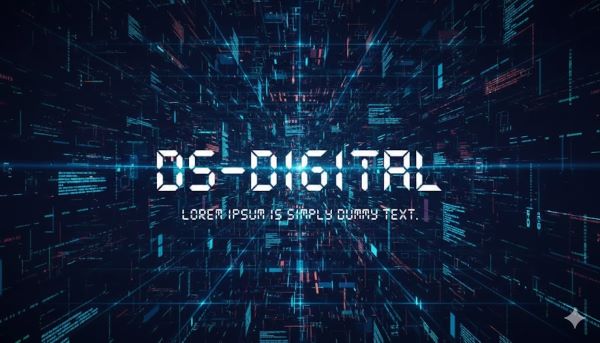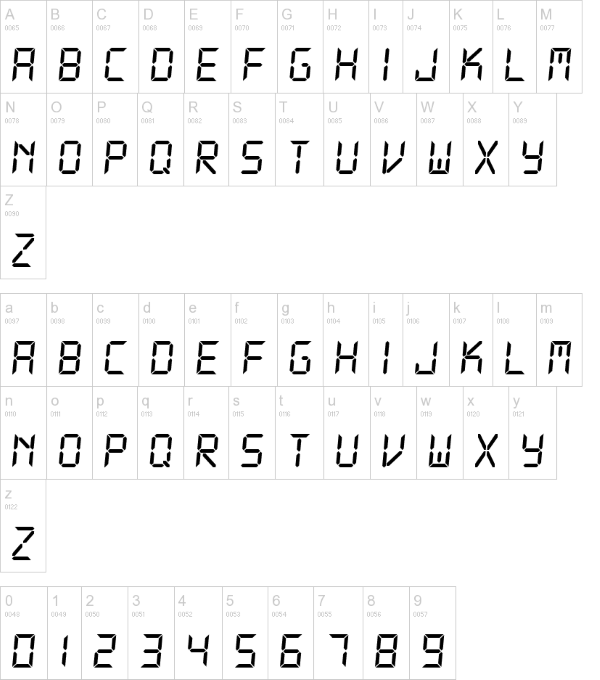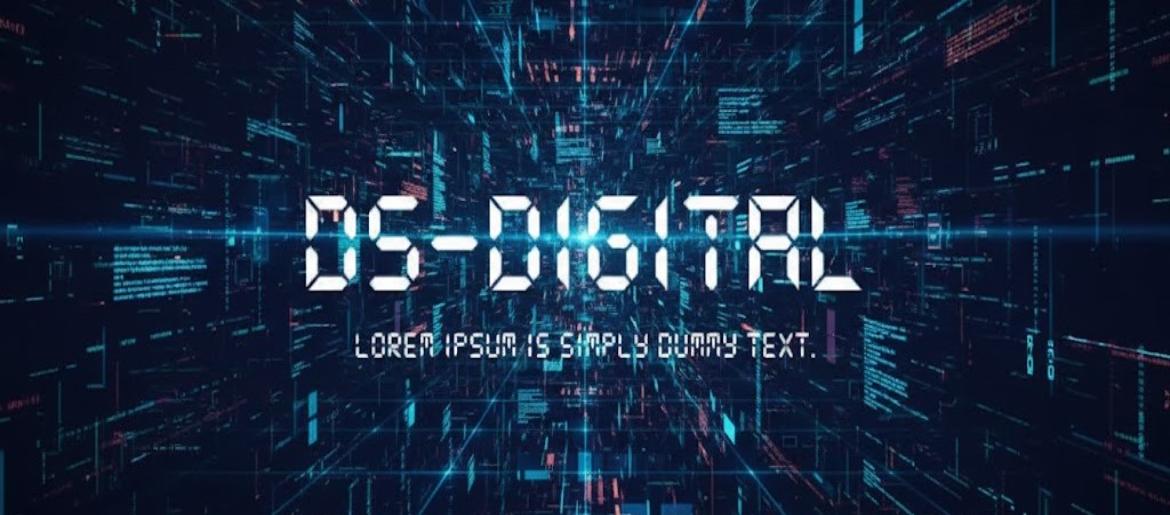
DS-Digital Font
DS-Digital Font is a digital-style typeface inspired by LED and electronic displays. With segmented letterforms and a tech-driven appearance, it’s ideal for clocks, timers, dashboards, sci-fi visuals, posters, and interface designs. DS-Digital delivers clear readability while adding a futuristic, electronic atmosphere to projects that require a modern digital aesthetic.